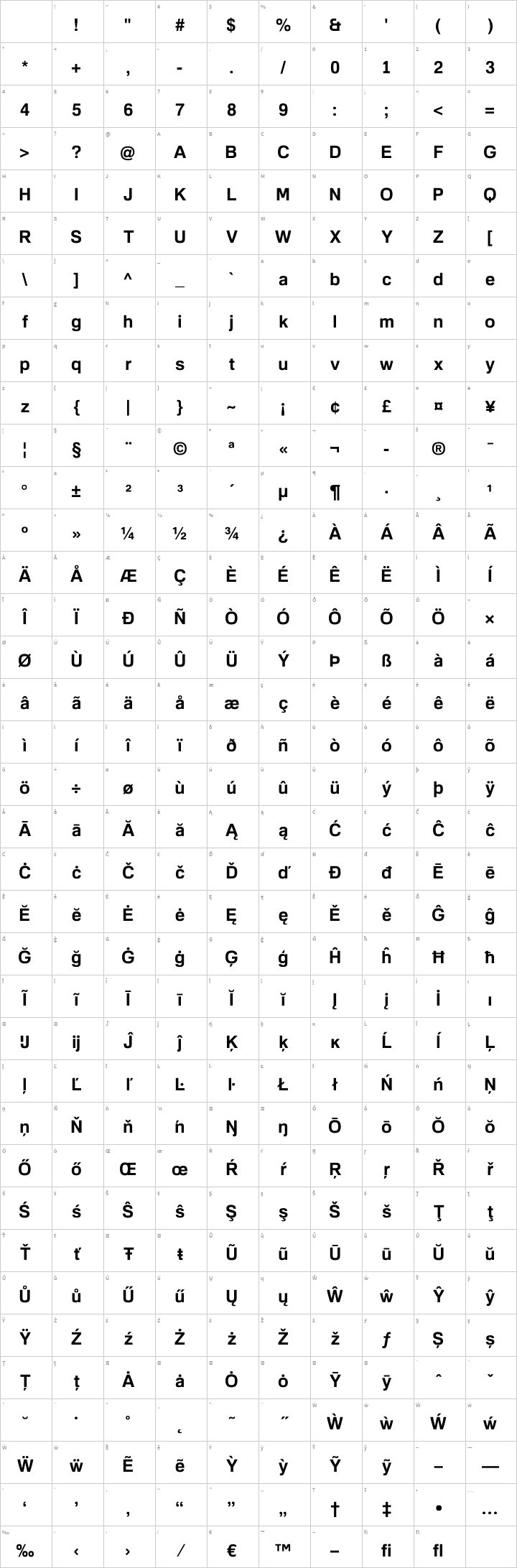
Familiar Pro
- sans serif
This family was inspired by a Type Battle over at Typophile: How would you design a font metrically compatible with Helvetica, but better than Arial? Working with preset letter widths was an interesting constraint, both a relief and a limitation at the same time.
Classification: | Sans Serif | |